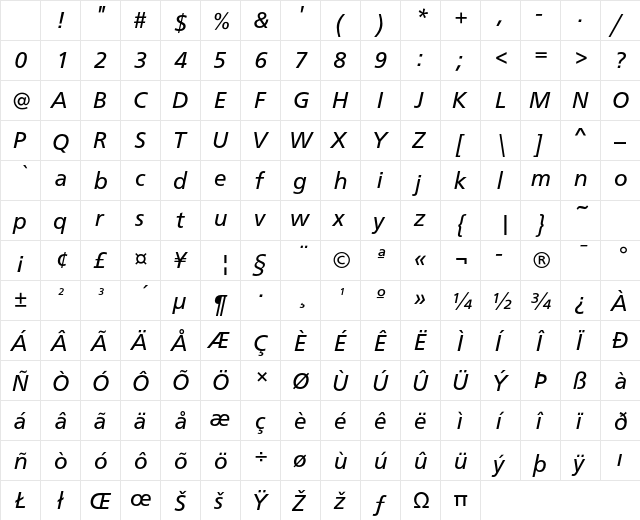
CartoGothic Std Italic Free Font
CartoGothic Std Italic
Design Context for CartoGothic Std
CartoGothic Std takes a clean, functional approach - its unadorned letterforms prioritise legibility and work reliably across screen and print environments. The slanted form adds forward momentum and visual energy.
Font Pairing: Works well alongside a characterful serif or display font that can carry the expressive load while CartoGothic Std handles the functional copy.
Pro Tip: Use CartoGothic Std for UI labels, navigation, and short-form body copy where clean legibility is the priority.